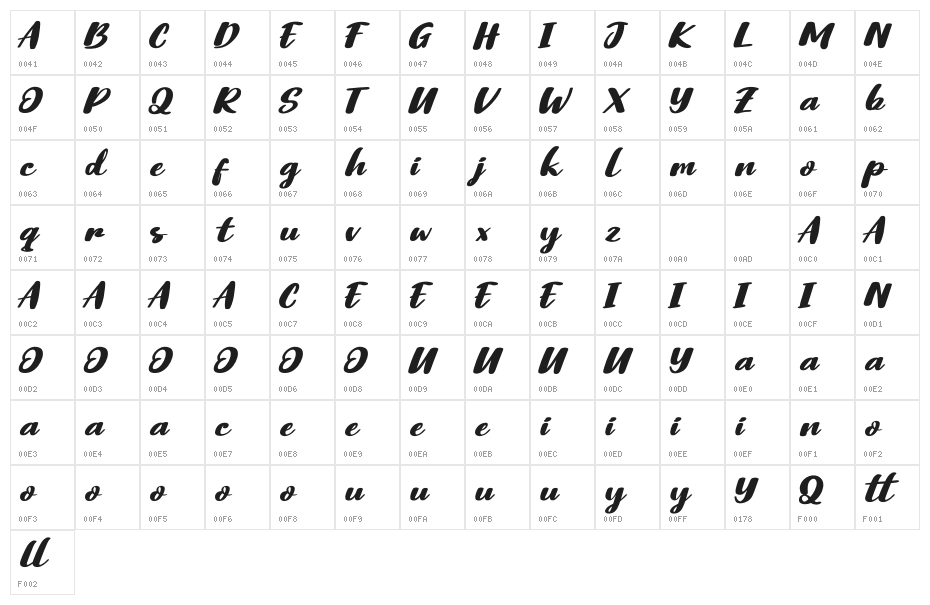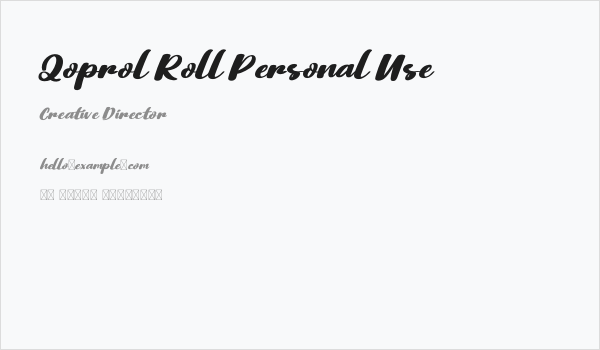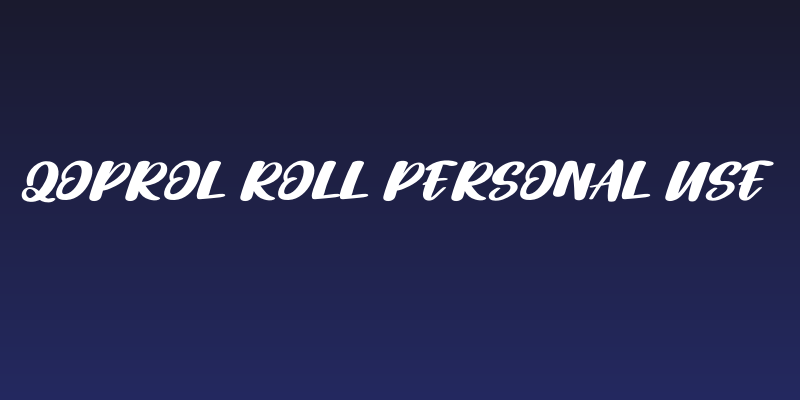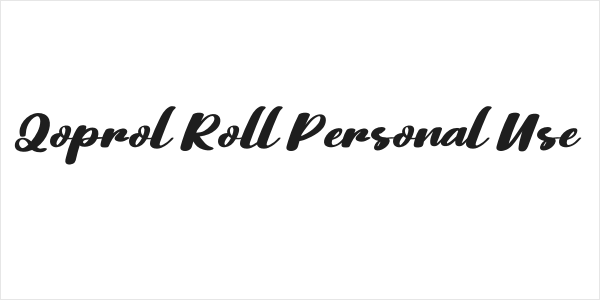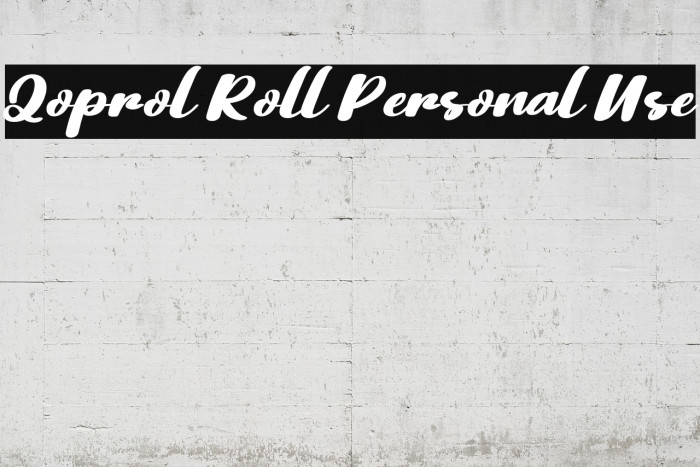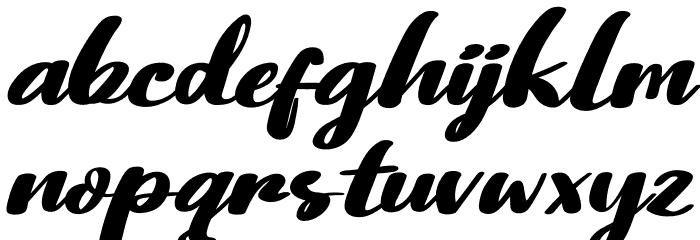
Qoprol Roll Personal Use Font
This font features a bold and expressive script style, characterized by its fluid and dynamic strokes. The uppercase letters are elegantly crafted with a slight slant, giving them a sense of movement and energy. The lowercase letters maintain a consistent flow, with smooth connections between characters, enhancing its cursive appeal. The font exudes a modern and artistic vibe, making it suitable for creative projects. Its bold weight and high contrast between thick and thin strokes add to its striking appearance, ensuring readability while maintaining a stylish flair.
| Proposed Projects | Ideal for branding, invitations, posters, and any design requiring a touch of elegance and creativity. |